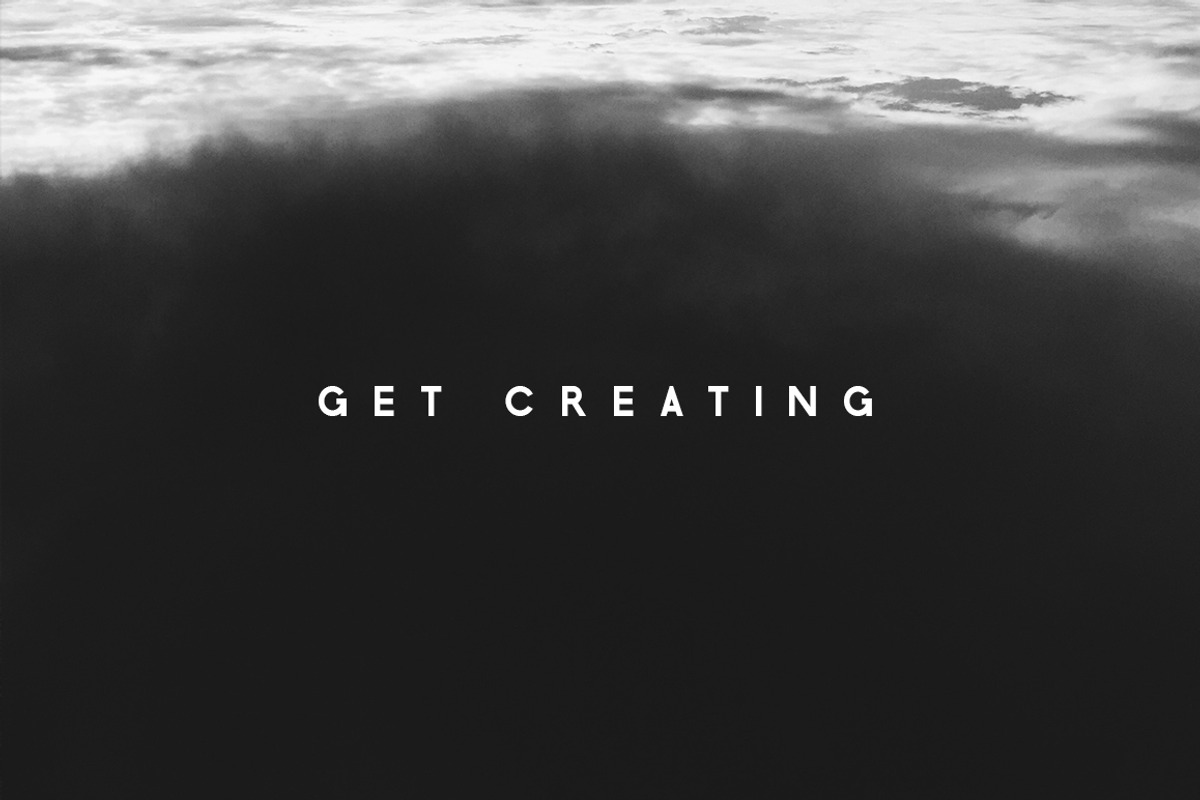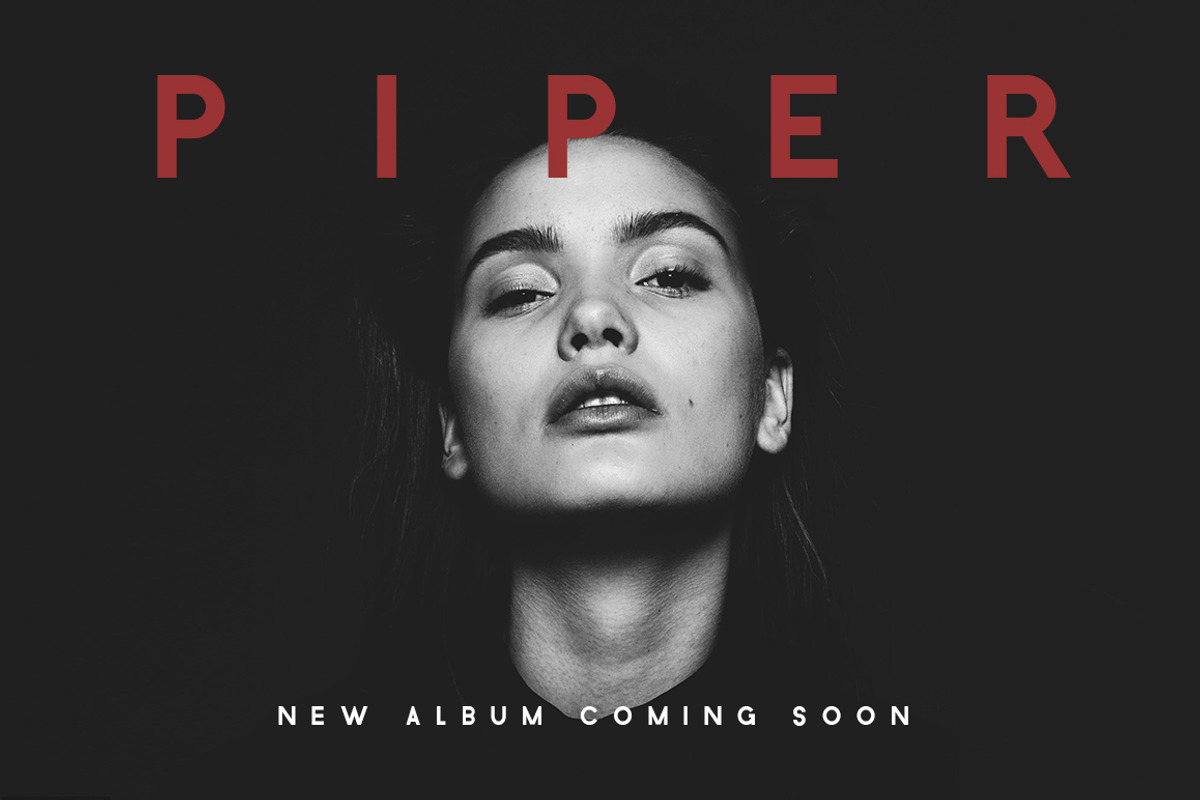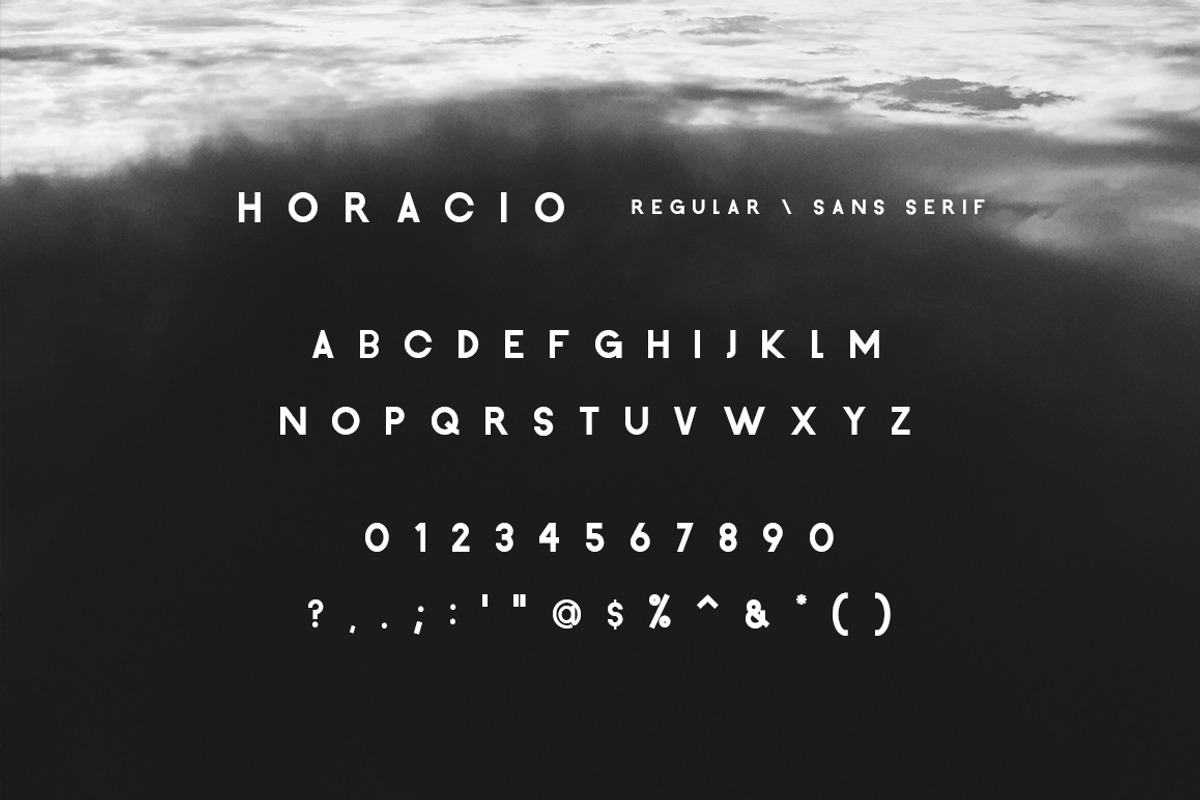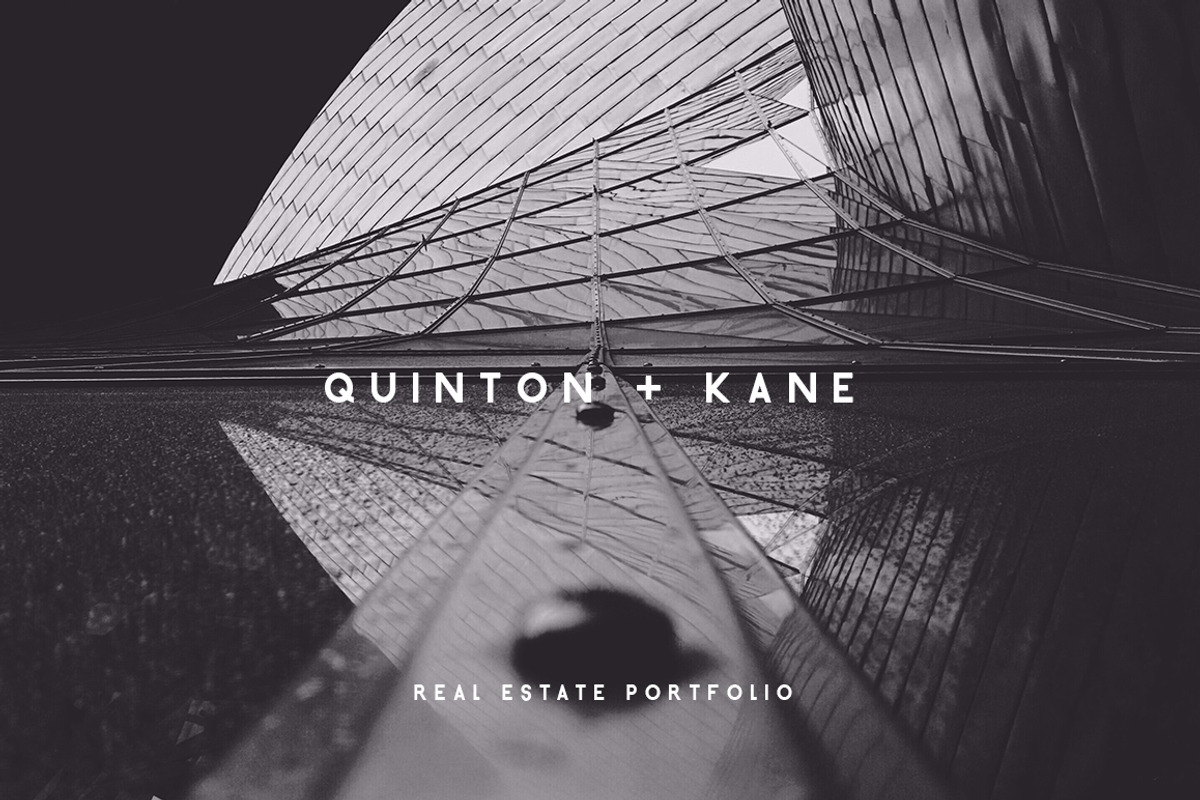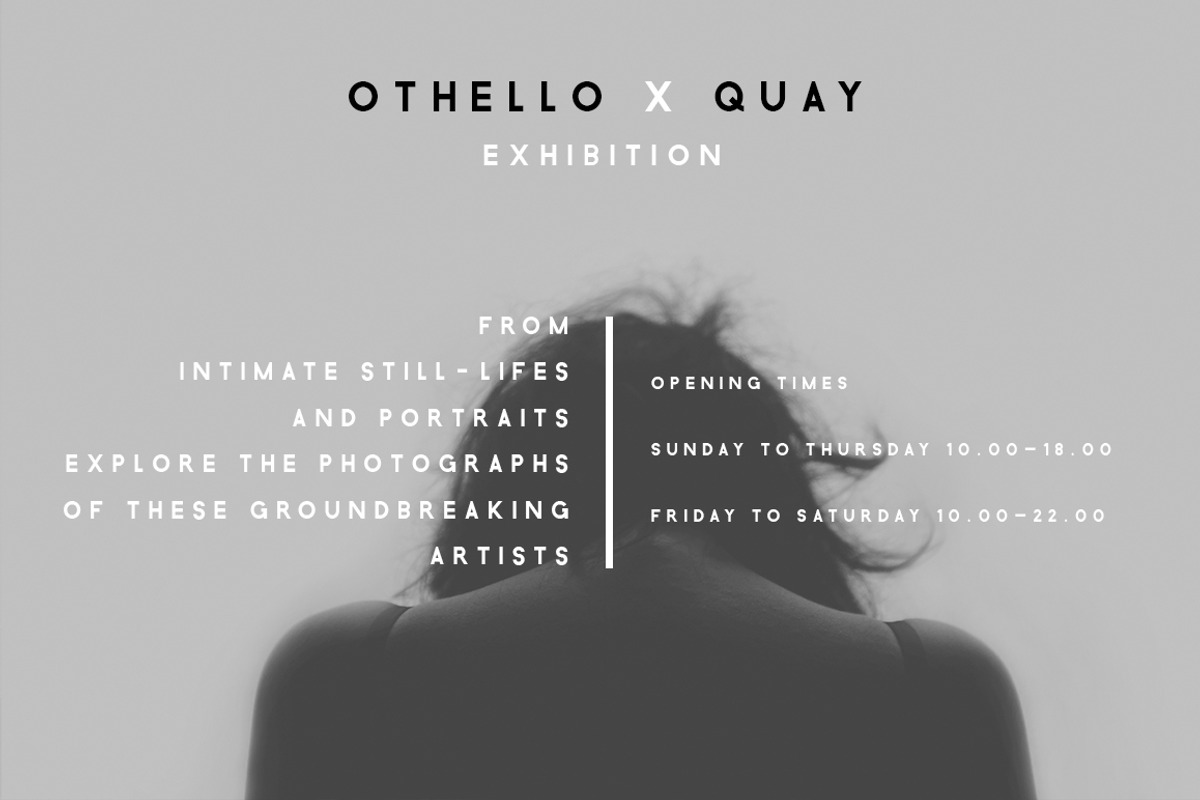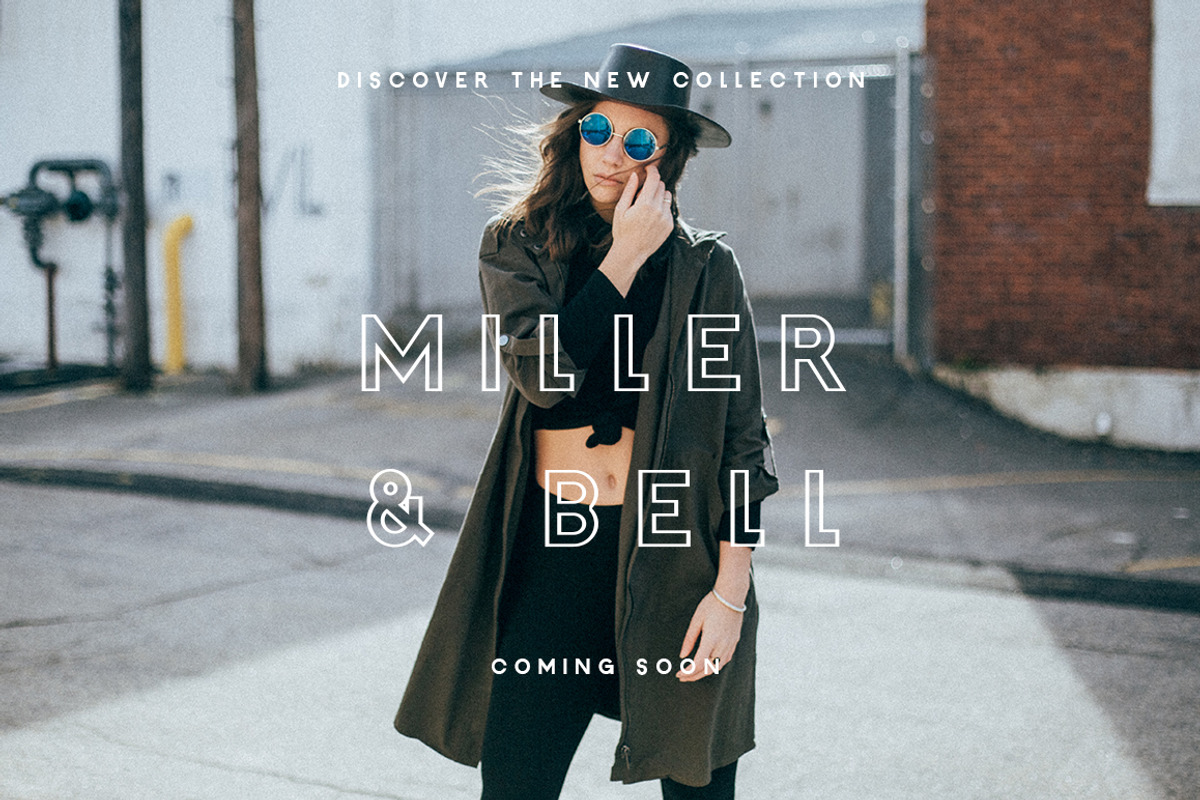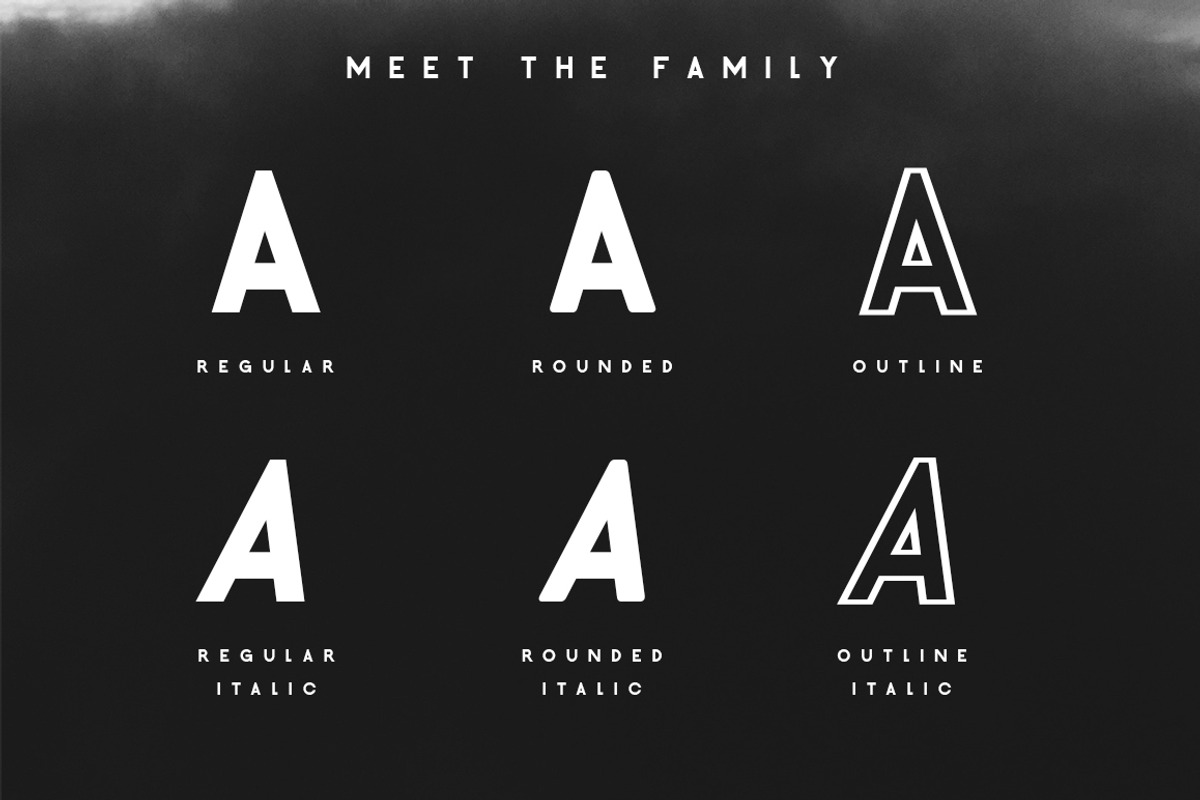
Horacio | A Prestigious Font Family
Create Prestigious Branding With Horacio!
Whether you’re designing for a client or for yourself, you may be looking for a clean and minimalist font, one that oozes quality and is so versatile it won’t go out of fashion.
Introducing Horacio - perfect for any project you need to add a little prestige to.
Horacio is sleek, striking and timeless. It achieves this through its bold lines, discreet angles and smooth rounding. Horacio is perfect for corporate projects, branding, publishing, editorial, and logotypes, but is also adaptable and versatile enough to be used for multiple different projects.
Western European characters included (Multilingual support)
Numbers and punctuation included
Optimized kerning for aesthetic and highly readable texts
Horacio comes in 6 timeless fonts, adding extra versatility and style
Horacio is the perfect font to create superior designs, ensuring you impress clients and consumers alike.
- Horacio Regular
- Horacio Regular Italic
- Horacio Outline
- Horacio Rounded
- Horacio Outline Italic
- Horacio Rounded Italic